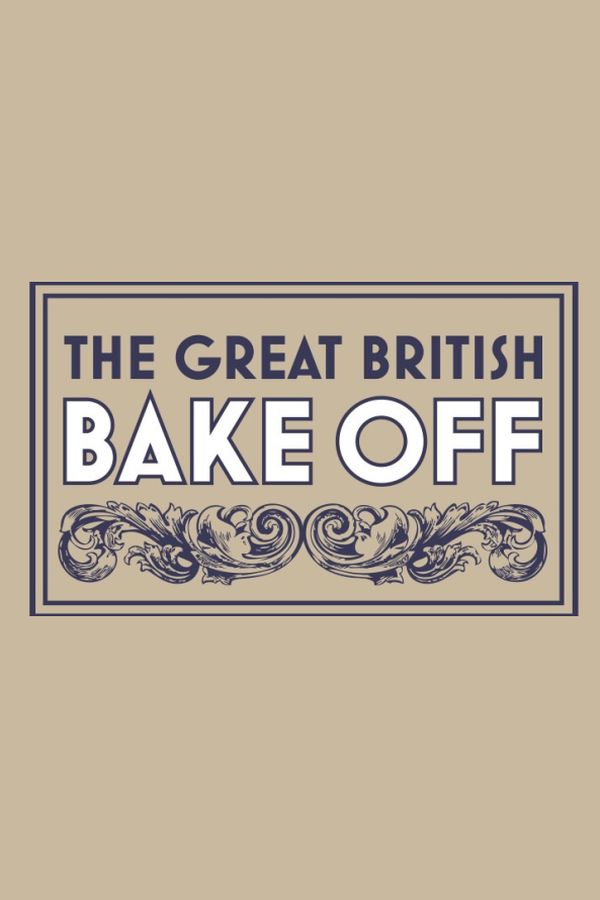
The Great British Bake Off Font
Fonts in UseThe Great British Bake Off is a baking competition show that premiered on BBC Two in 2010 and later moved to Channel 4 in 2017. It features amateur bakers from across the UK competing in a series of challenges to showcase their baking skills, with judges Paul Hollywood and Prue Leith critiquing their creations.
The TV show's logo is designed with the Mostra Nuova font, a geometric sans-serif typeface created by Mark Simonson. You can find more details about the font here.